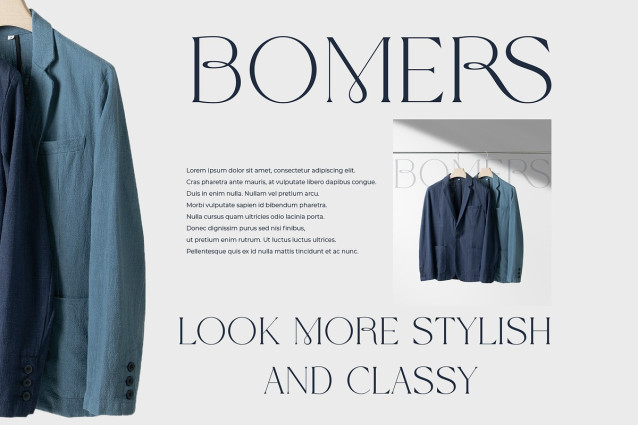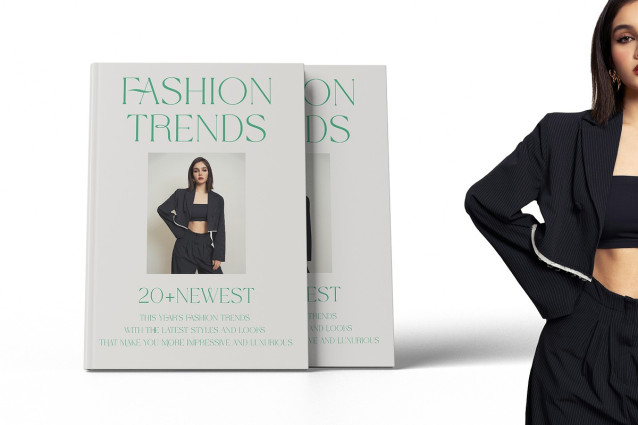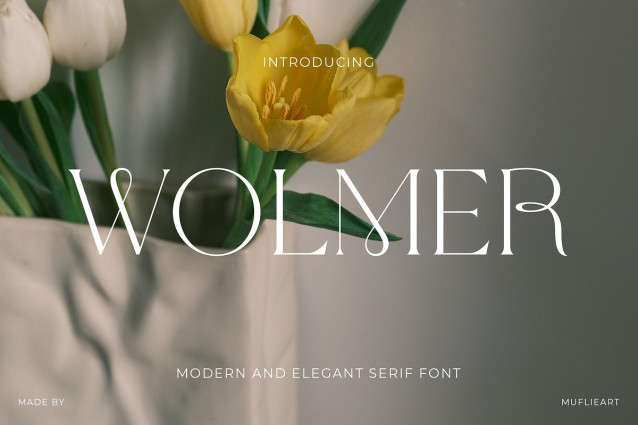
Wolmer Font
Wolmer Font – Modern & Elegant Serif Font is a modern typeface with a touch of classic elegance. The letter design strikes a balance between minimalism and luxury, making it suitable for a variety of premium design needs, such as logos, branding, editorials, wedding invitations, and packaging.
With refined typographic details, Wolmer lends a professional, stylish, and timeless feel to any of your creative projects.